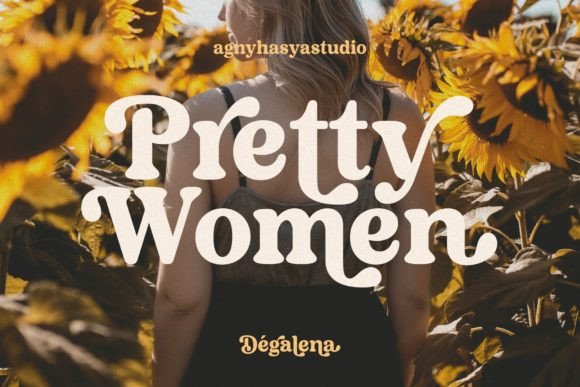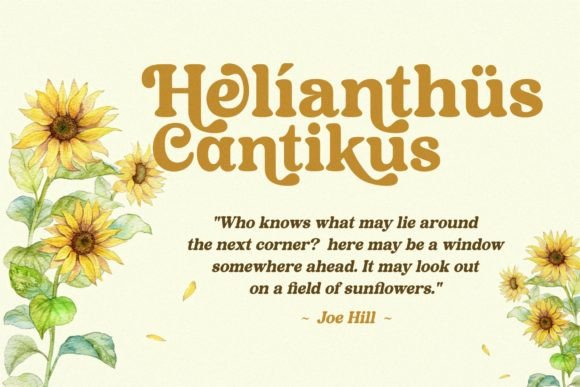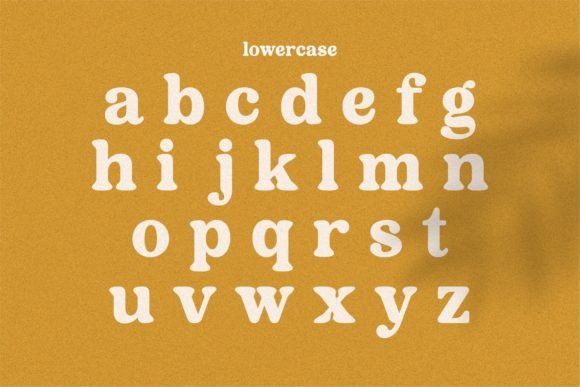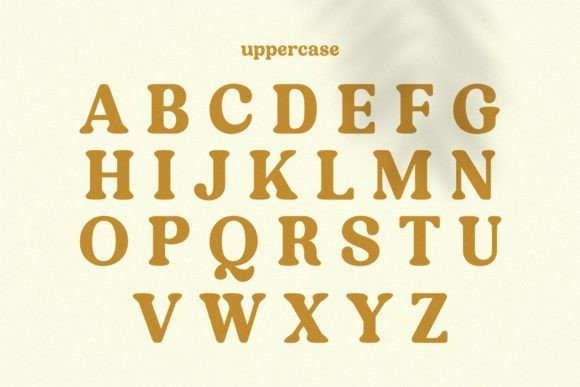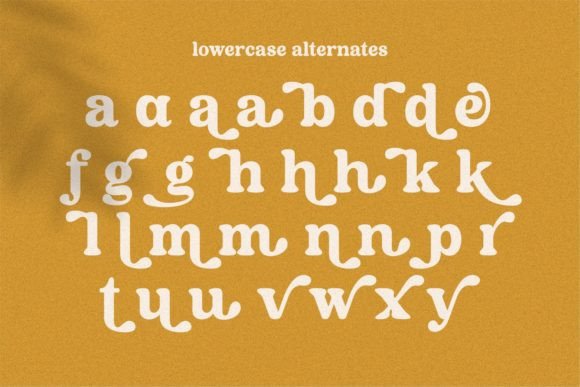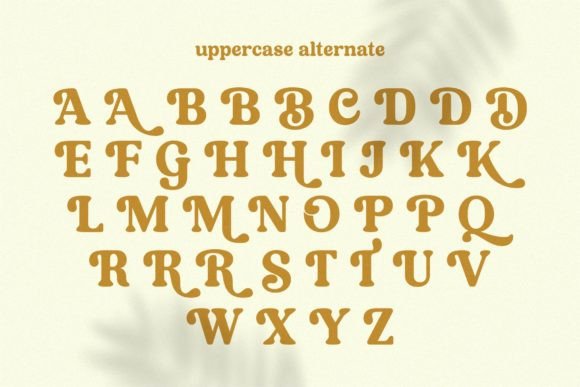
Degalena Font: A Modern Vintage Serif for Your Design Projects
Are you looking for a font that combines modern elegance with vintage charm? Look no further than Degalena, a stunning modern retro vintage display font that embodies the spirit of the ’70s, ’80s, and ’90s. With its bold curves, groovy vibes, and unique design elements, Degalena is the perfect addition to your design projects.
What is Degalena Font?
Degalena is a modern vintage serif font that boasts a distinctive blend of classic and contemporary design elements. This beautiful font features bold curves, elegant lines, and a versatile style that makes it perfect for a wide range of design projects. Whether you’re creating logos, branding materials, advertising campaigns, or product designs, Degalena is the ideal choice.
Key Features of Degalena Font
Degalena font comes with an array of exciting features that make it a standout in the world of typography. Some of its key features include:
- Two Styles: Degalena comes in two styles: regular and italic, giving you flexibility and versatility in your design projects.
- Glyph Variations: The font features glyph variations like alternates and ligatures, allowing you to create unique and creative designs.
Uses of Degalena Font
Degalena font is incredibly versatile and can be used in a wide range of design projects, including:
- Logos and Branding: Create stunning logos and branding materials that showcase your brand’s personality and style.
- Advertising: Use Degalena to create eye-catching advertising campaigns that grab attention and leave a lasting impression.
- Product Designs: Add a touch of elegance and sophistication to your product designs with Degalena.
- Stationery: Create beautiful stationery, including business cards, letterheads, and envelopes.
- Magazine Designs: Use Degalena to create stunning magazine designs that showcase your content in style.
- Book/Cover Title Designs: Create eye-catching book covers and title designs that grab attention.
- Photography: Add a touch of elegance to your photography with Degalena.
- Art Quotes: Use Degalena to create stunning art quotes that showcase your creativity.
- Wedding Designs: Create beautiful wedding designs, including invitations, programs, and decorations.
- Fashion Designs: Use Degalena to create stunning fashion designs that showcase your style.
- Special Events: Create memorable special event designs, including posters, flyers, and brochures.
- Labels and Product Packaging: Add a touch of elegance to your labels and product packaging with Degalena.
Why Choose Degalena Font?
Degalena font is an excellent choice for designers and crafters looking for a modern vintage serif font that combines elegance and versatility. Here are some reasons why you should choose Degalena:
- Unique Design: Degalena boasts a unique design that sets it apart from other fonts.
- High-Quality: The font is of high quality, making it perfect for professional design projects.
In conclusion, Degalena font is a stunning modern retro vintage display font that is perfect for designers and crafters looking for a unique and versatile font for their design projects. With its bold curves, groovy vibes, and elegant design elements, Degalena is sure to impress. Whether you’re creating logos, branding materials, advertising campaigns, or product designs, Degalena is the ideal choice. So why wait? Download Degalena font today and take your design projects to the next level!